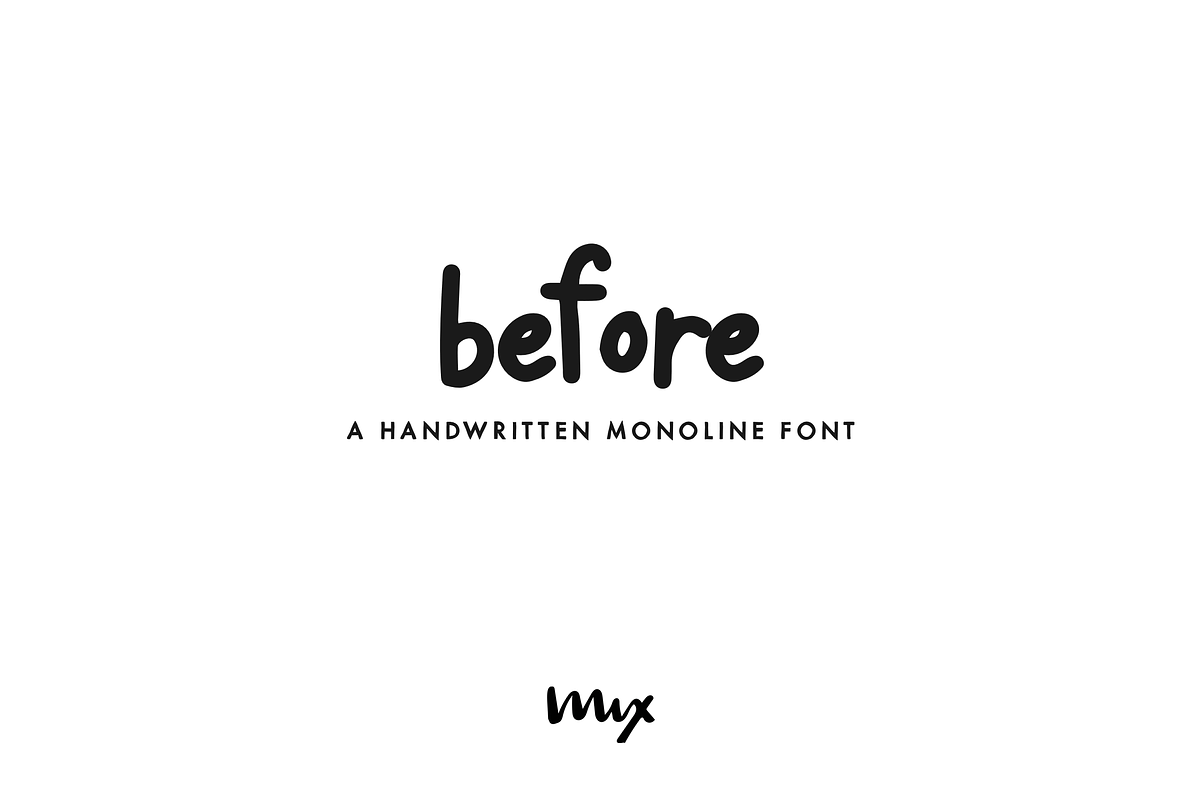
Elegant, simple, and full of personality, Before — A Handwritten Monoline Font Free Download is a clean, modern script typeface that captures the charm of handwriting with a minimalist touch. Perfect for logos, invitations, social media graphics, branding, and more, this font brings a personal yet polished feel to your designs.
With its smooth, consistent strokes and simple design, Before offers a versatile, easy-to-read look while maintaining a handmade, authentic quality. Whether you’re creating a sleek brand, designing a chic invitation, or adding personality to a social media post, this font adds warmth and style.